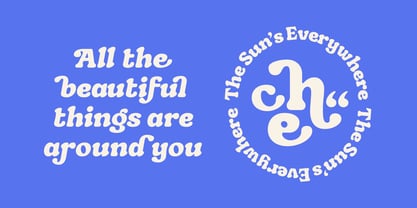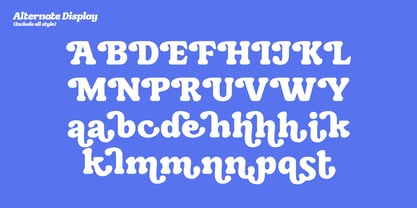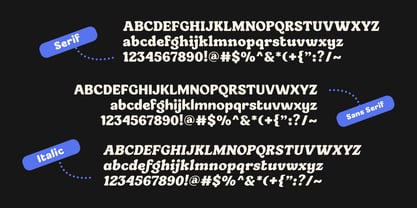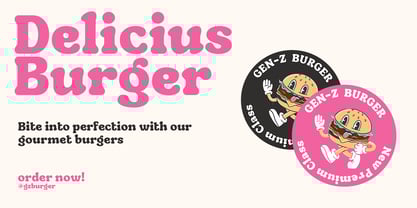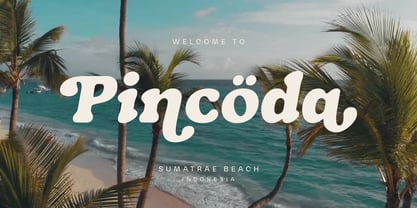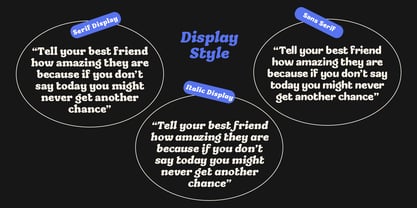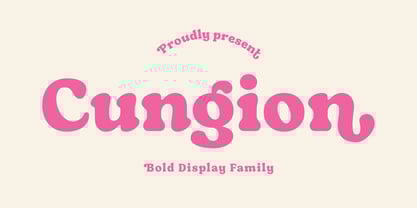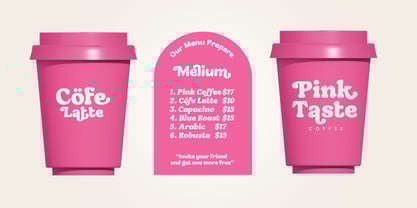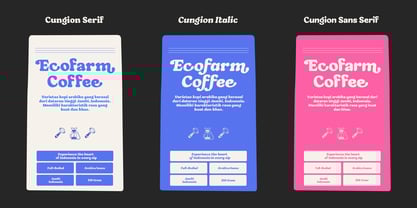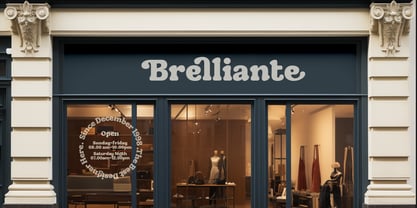
Cungion
by Wildan Type
The Cungion Font Family was designed by Wildan Suprian Syah and published by Wildan Type. Cungion contains 4 styles and family package options. More about this family
Cungion is a display font designed with several bold styles that are in harmony with each other. The low contrast of the stroke gives a firm impression on the use of title text or headlines. Some nodes are made more rounded to show a warm, fun and imaginative impression. In the serif style, the serif is made bold and slightly retro with a modern touch. Cungion font also features several alternate characters to give options to users who want to add a decorative impression. Overall, Cungion displays 4 style options (Sans Serif, Serif, Italic, Sans Slant) that are suitable for the use of short texts that require large and easy-to-read fonts such as; title, headline, brand identity, quote, product name, brand name or short paragraph.
Designers: Wildan Suprian Syah
Foundry: Wildan Type